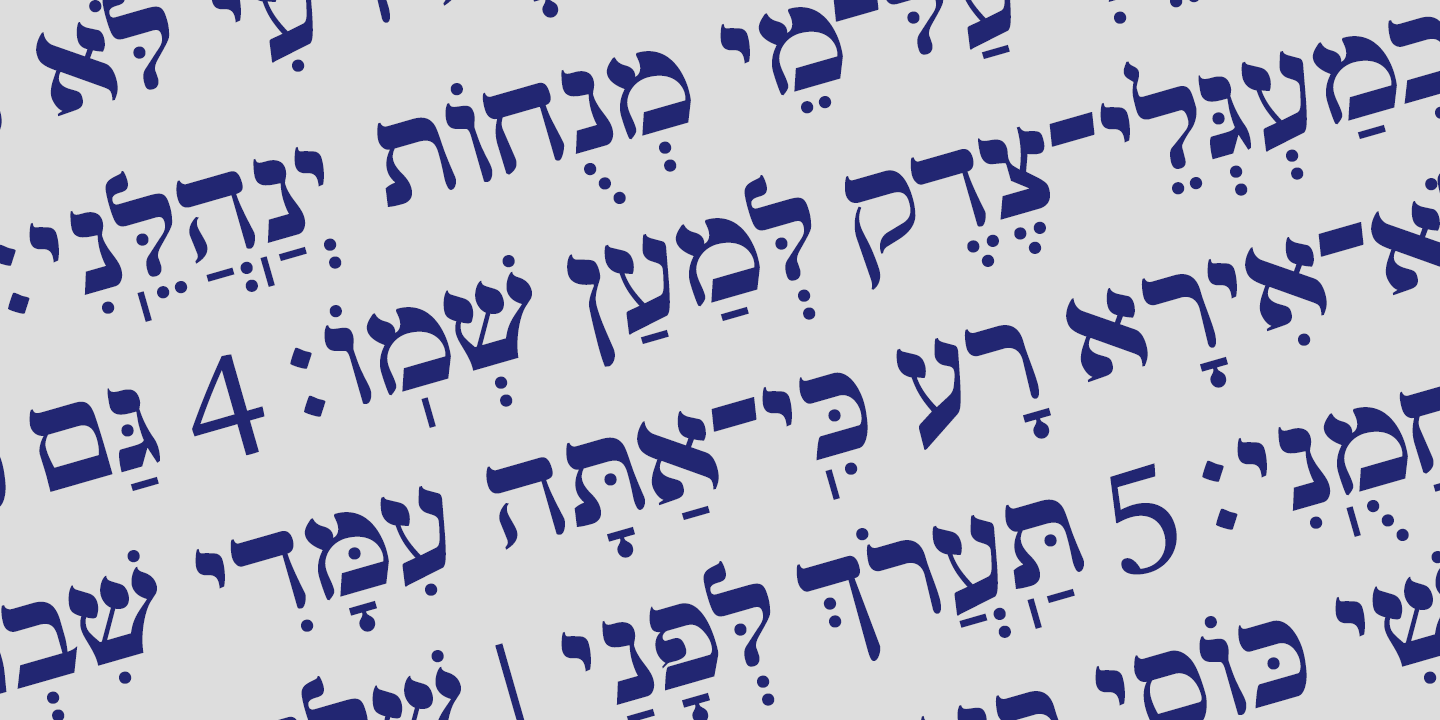
Hebrew Marge Font is perfect for religious publications, synagogue materials, Jewish cultural centers, Hebrew educational resources, Bar/Bat Mitzvah invitations, kosher restaurant menus, Jewish heritage museums, religious ceremony programs, Hebrew language textbooks, and interfaith community communications.
What makes Hebrew Marge Font exciting is its authentic cultural heritage and spiritual elegance that honors the sacred tradition of Hebrew typography while providing contemporary functionality for modern applications. This distinguished typeface embodies the essence of Jewish textual tradition with its carefully crafted Hebrew characters and respectful design approach that maintains cultural authenticity while ensuring excellent readability. The font's reverent character creates an immediate connection to thousands of years of Hebrew literary and religious heritage.
Hebrew Marge Font family includes regular weight with traditionally inspired character designs featuring authentic Hebrew letterforms and cultural proportions. The typeface maintains exceptional legibility while preserving its distinctive heritage personality through respectfully crafted Hebrew characters that honor traditional scribal traditions while meeting contemporary publishing standards.
Religious and cultural organizations consistently select Hebrew Marge Font Free Download for projects requiring authentic Hebrew typography and cultural sensitivity. This remarkable typeface brings the dignity of Hebrew tradition to modern communications, combining sacred heritage with practical functionality to create meaningful reading experiences. The thoughtfully designed characters ensure respectful representation across all applications, making it essential for Jewish institutions, educational publishers, and any organization seeking to communicate with the cultural authenticity and spiritual reverence that honors Hebrew textual traditions while serving contemporary Hebrew-speaking communities worldwide.